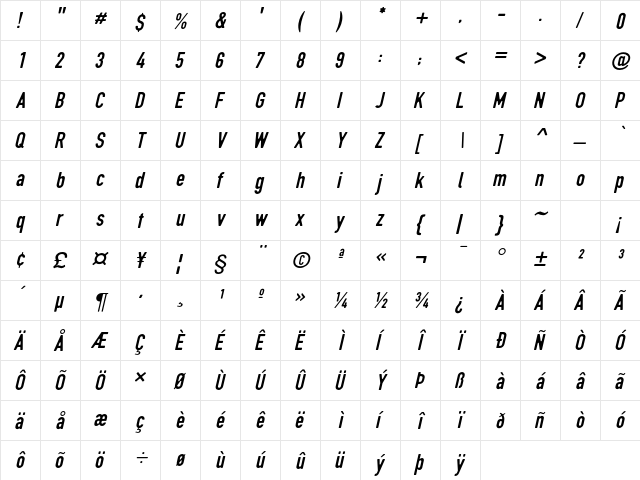
DIN Rundschrift EngKursiv
Design Context for DIN Rundschrift Typeface
DIN Rundschrift is a composed and adaptable typeface that performs quietly and consistently across a wide range of design contexts. The dynamic lean of this cut emphasises speed and emphasis in any layout.
Pro Tip: Try DIN Rundschrift for annotation and caption copy alongside an upright companion — the contrast in angle creates a dynamic but ordered typographic system.